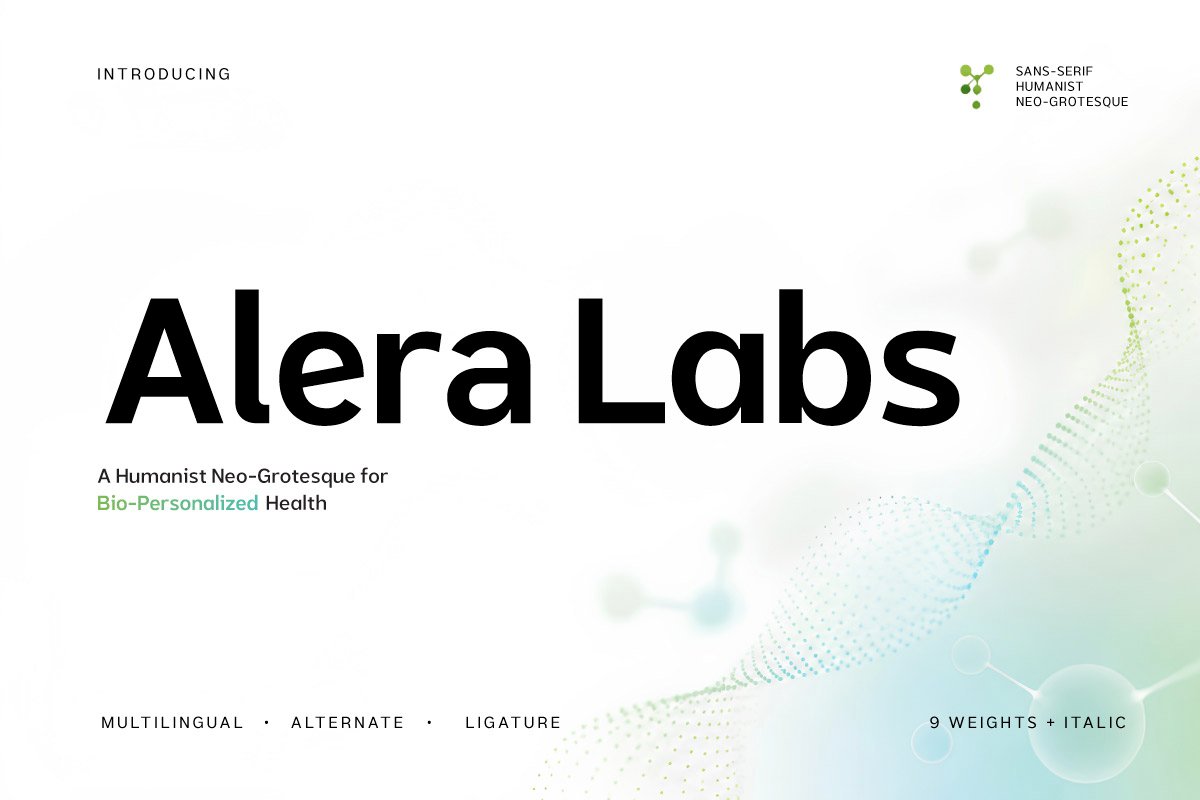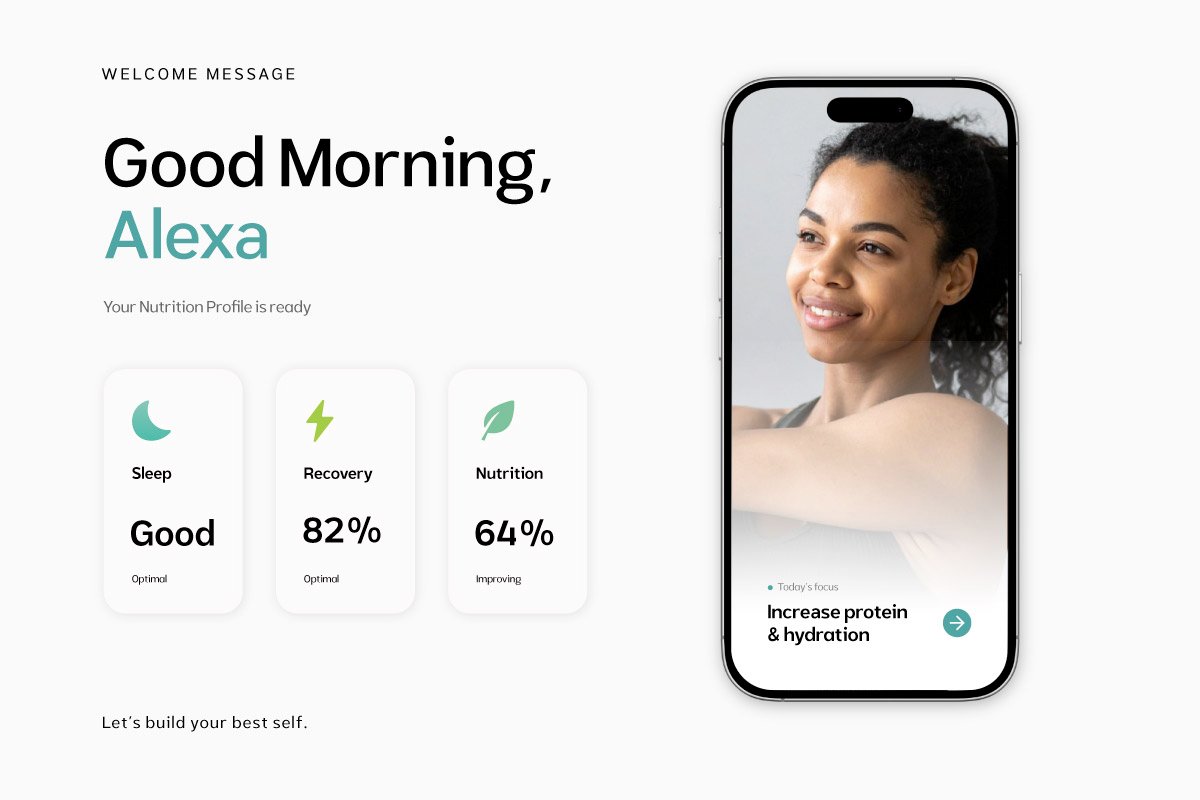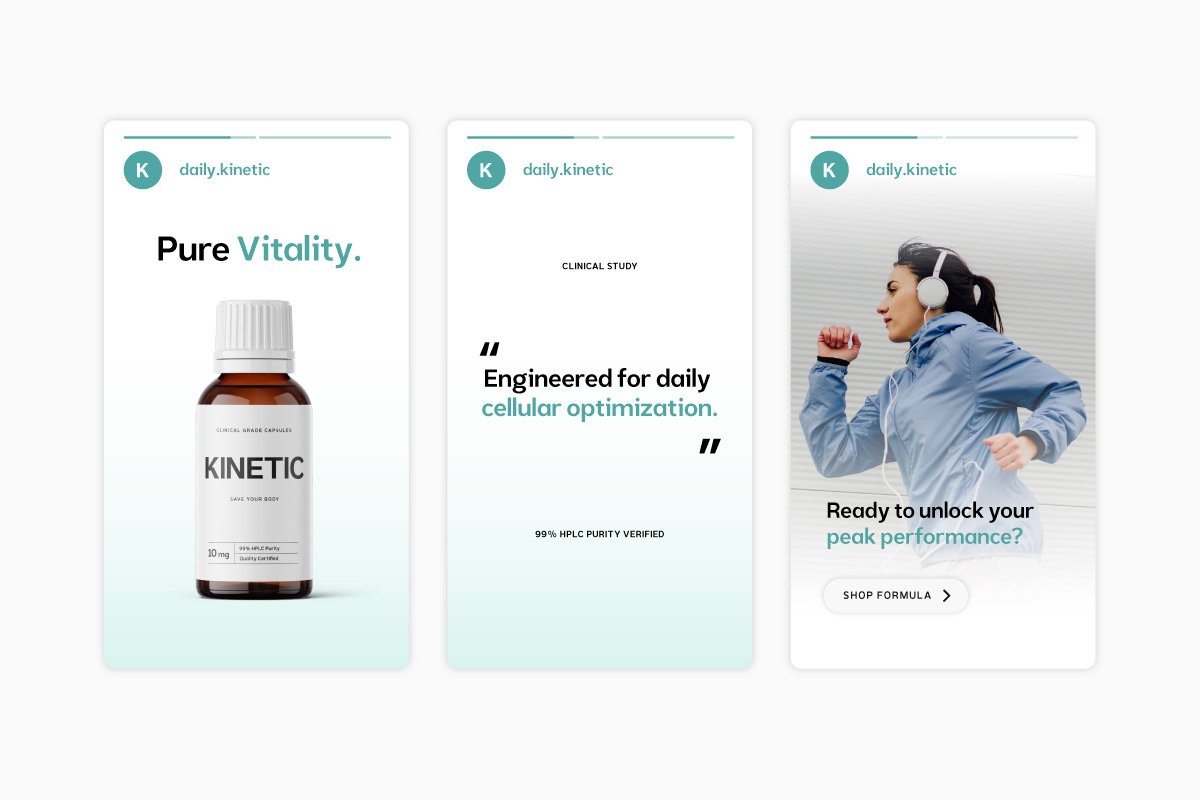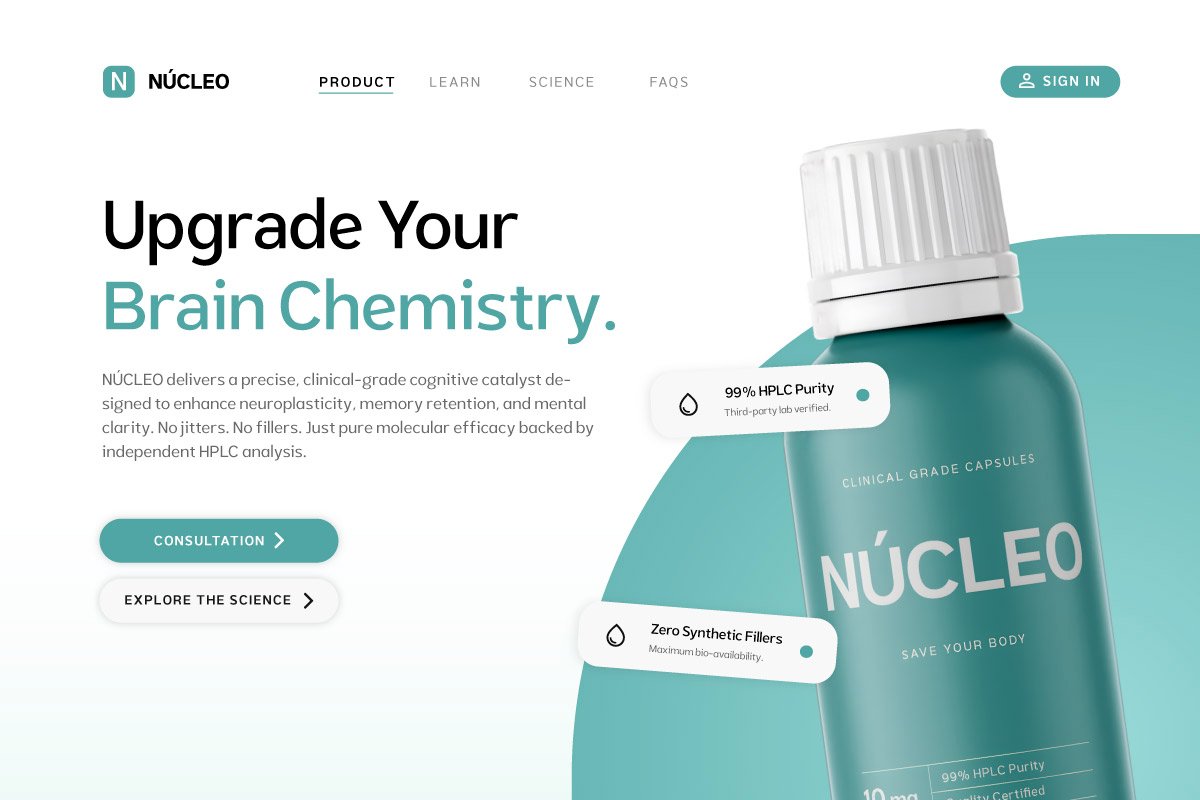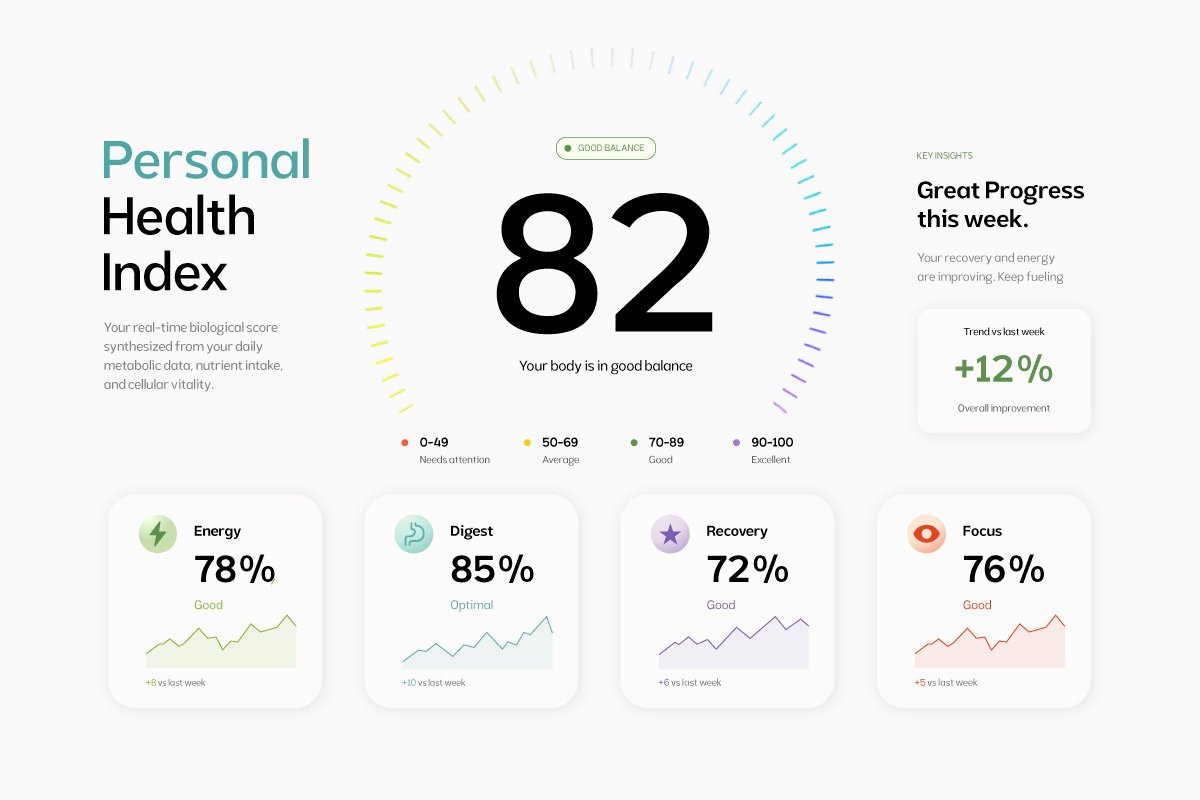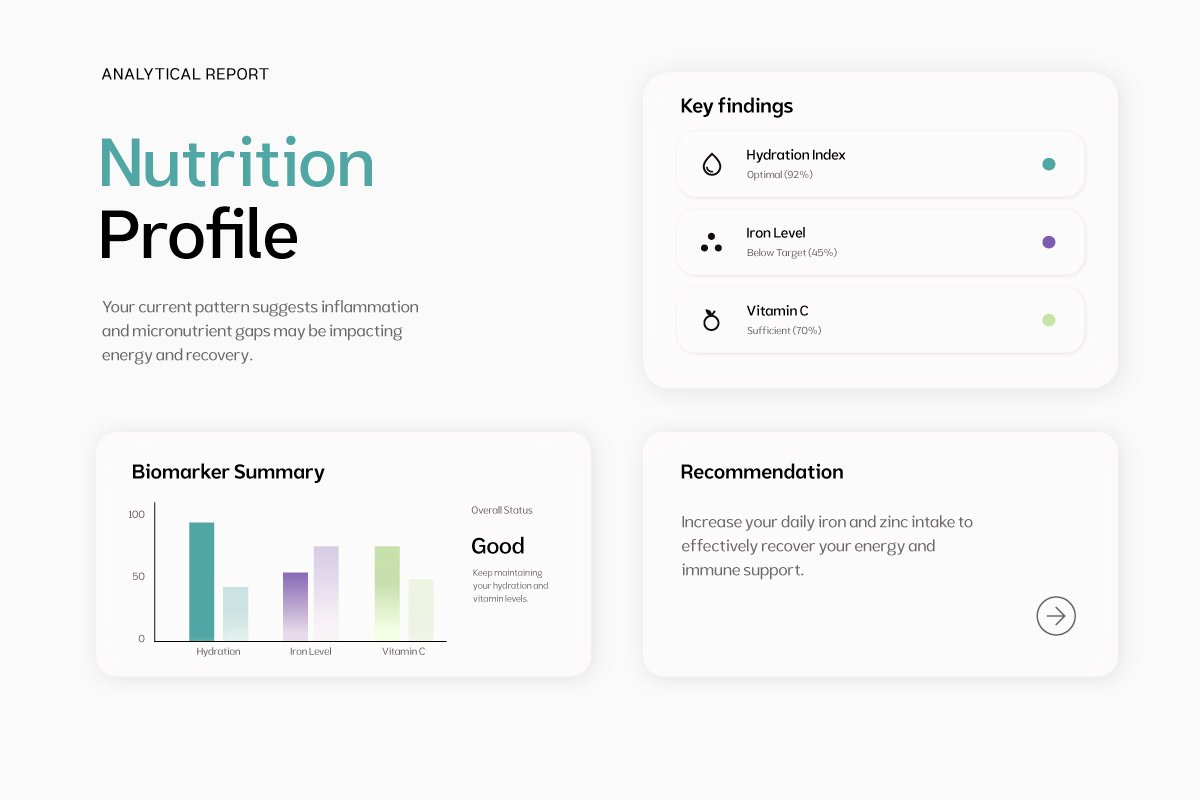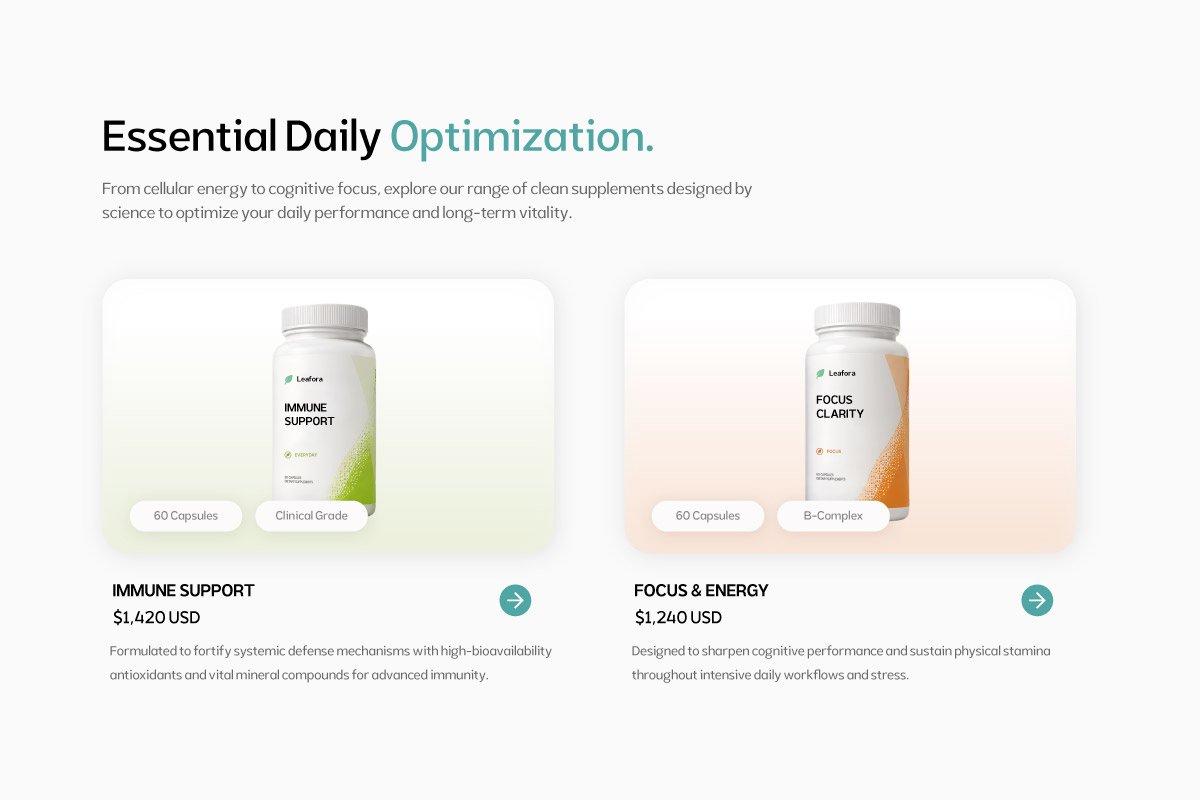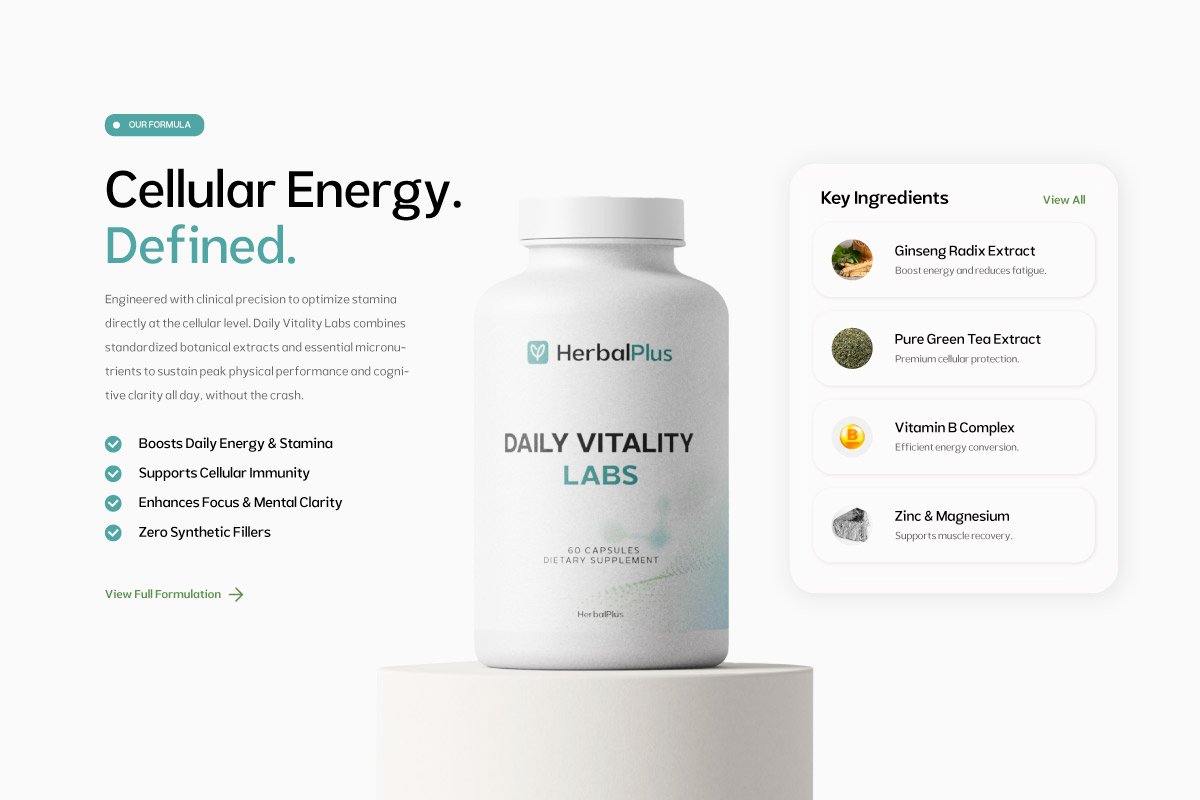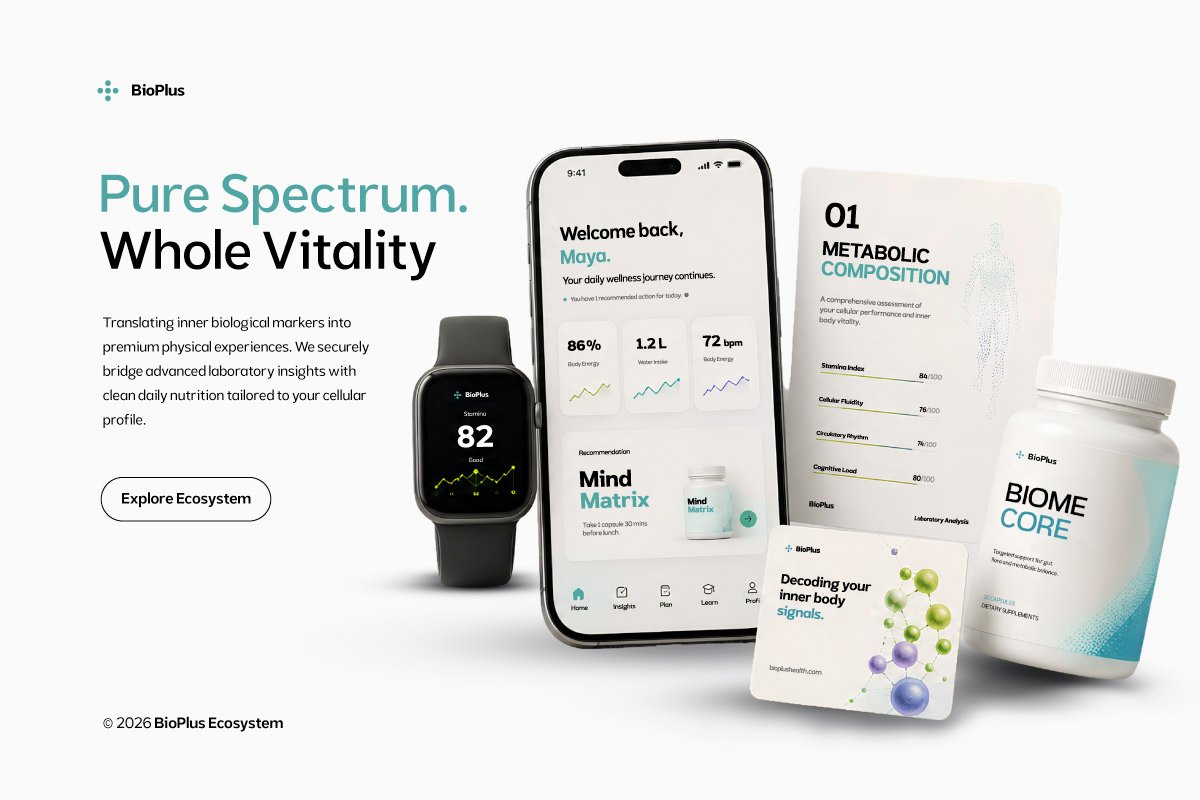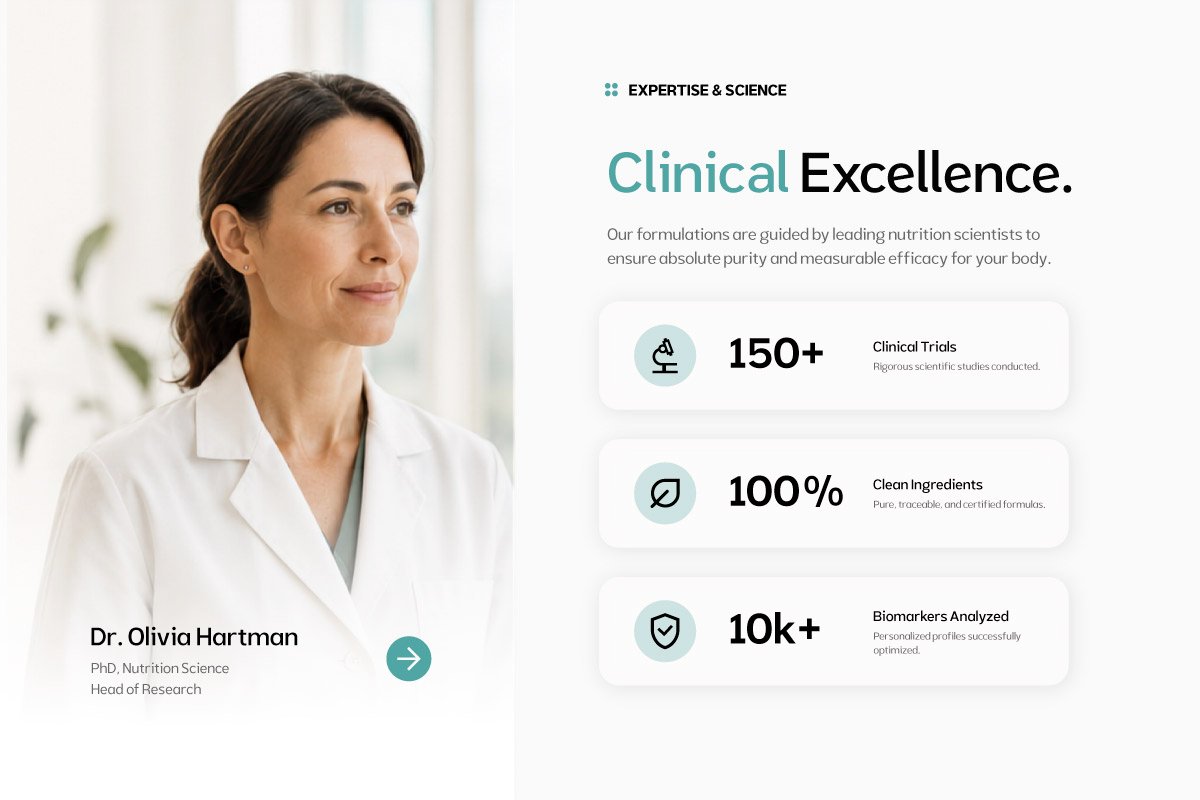
- Alera Labs – Scientific Humanistic
Alera Labs – Scientific Humanist is a modern humanist sans serif font designed to create a clean, scientific, trustworthy, and professional visual presence. Its refined letterforms offer excellent readability while adding a sophisticated character to health, nutrition, technology, and science-focused brands.
This typeface is ideal for bio-personalized nutrition, health technology, scientific supplements, wellness platforms, and daily health tracker apps. Alera Labs works beautifully for logos, brand identity, websites, mobile apps, packaging, editorial design, presentations, and marketing campaigns that require a modern and credible aesthetic.
A strong choice for startups, health companies, nutrition brands, scientific products, and creative agencies looking to build an intelligent, sophisticated, and future-focused visual identity.